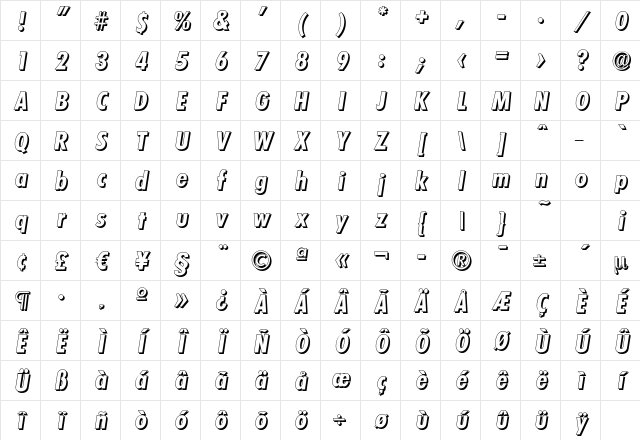
Complete LimerickCondDropShadow Bold Italic glyph index. Displaying only characters natively supported by LimerickCondDropShadow Bold Italic font.
LimerickCondDropShadow is built around its visual character rather than neutral utility - its distinctive forms are designed to make an impression at display sizes. The slanted form adds forward momentum and visual energy. Its bold stroke weight gives it real presence on the page.
Font Pairing: Pair with a clean neutral sans-serif for body copy to let LimerickCondDropShadow's character lead without overwhelming the composition.
Pro Tip: Use LimerickCondDropShadow exclusively at display sizes - it was designed to be seen, not read at length. Let a neutral companion handle body copy.